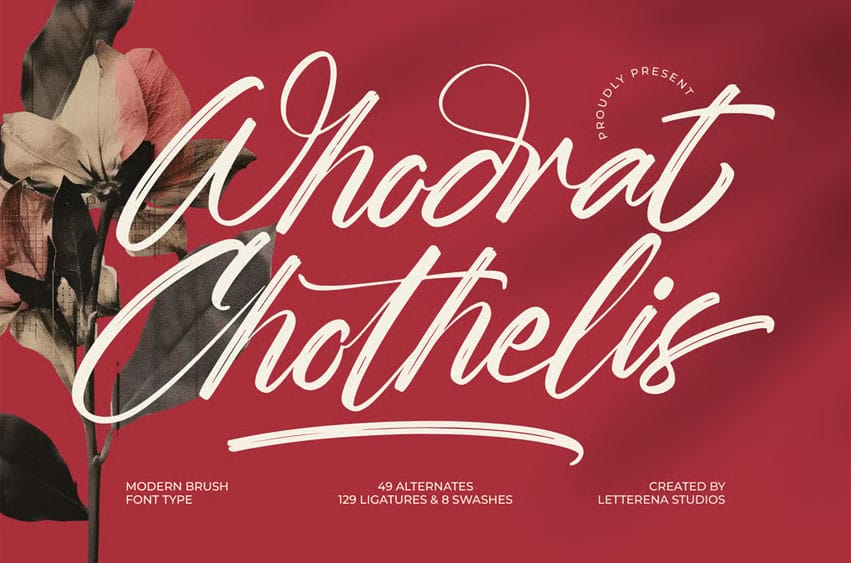
Whadrat Chothelis Font is suitable to complement your digital and printed creative products.
This font is perfect for posters, social media posts, branding, personal projects, etc.